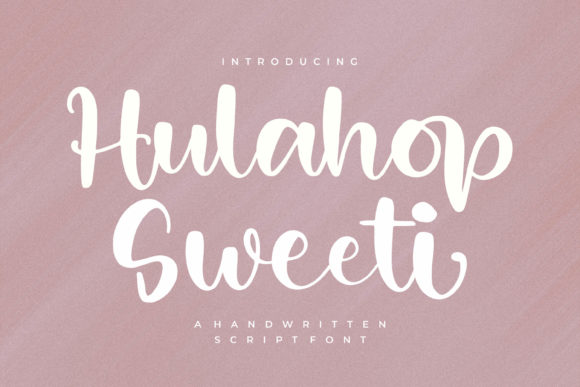
Unleash your inner creativity with Hulahop Sweet Font, a mesmerizing script font that dances across your designs with grace and elegance. Crafted by the talented hands of integritypestudio, this font is a symphony of beauty, expertly designed to elevate your projects to new heights.
Immerse yourself in the world of Hulahop Sweet, where each letter flows seamlessly into the next, creating a captivating visual harmony. Its delicate curves and playful flourishes add a touch of whimsy and charm to any project, whether you're crafting an enchanting invitation, a heartfelt letter, or a captivating logo.
With Hulahop Sweet Font, you hold the key to unlocking a world of enchanting possibilities. Its intricate details and playful personality will add a touch of magic to your creative endeavors, transforming them into works of art.